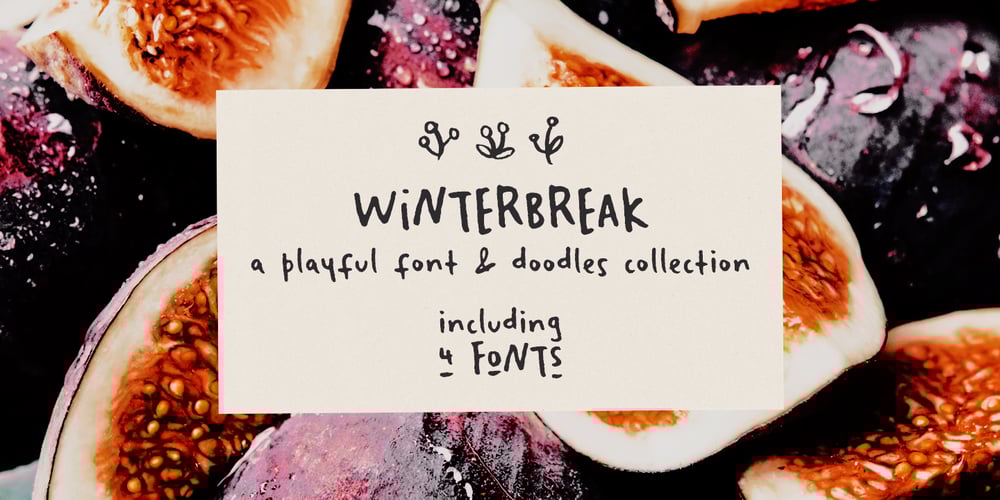
Winterbreak Trio Font Family was designed by Ana Parracho and published by Ana’s Fonts. Winterbreak Trio contains 4 styles and family package options. Winterbreak is a playfont font and doodles set. It includes: 3 variations of the Winterbreak font that can be used together to create interesting hand-lettering compositions 1 set of doodles that complement the handwritten fonts perfectly Use Winterbreak in designs such as postcards and notes, posters, logotypes, social media posts, branding and packaging.